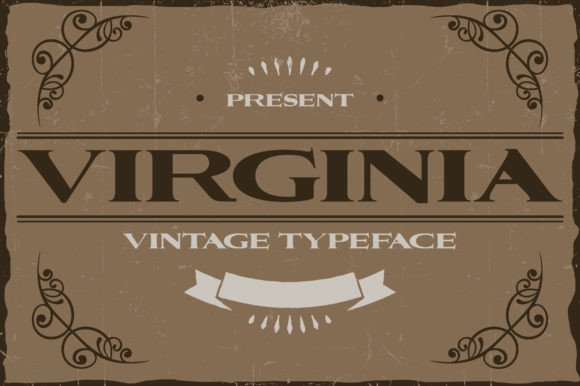
Step into the world of Virginia Font, a slab serif typeface echoing the untamed spirit of the wild west cowboys. Crafted by Minimalistartstudio, it embodies the essence of American culture. Adorned with sophisticated serifs and bold strokes, Virginia tells a tale of adventure and frontier living. It's not just a font; it's a gateway to the past, an invitation to embrace the rugged charm of cowboy culture.
Experience the versatility of Virginia Font, seamlessly adapting to your creative visions. Whether it's wedding cards, book covers, magazine spreads, or comic book pages, Virginia adds a touch of vintage charm and authenticity. Its timeless appeal blends seamlessly with modern aesthetics, creating a harmonious balance between nostalgia and innovation. Unleash your creativity and let Virginia take center stage in your designs.
Immerse yourself in the captivating aura of Virginia Font. Its thick, distinct characters exude an unmistakable presence, capturing attention and leaving a lasting impression. The font's carefully crafted curves and sharp angles dance together, creating a visual symphony that captivates the eyes. Use Virginia to craft designs that speak volumes, conveying messages with an air of authority and grace.
With Virginia Font, you can transport your audience to a bygone era, the days of cowboys and dusty trails. It's a font that evokes emotions, stirring a sense of wanderlust and adventure. Each letter is a brushstroke, painting a vivid picture of the wild west, inviting your readers to embark on a journey through time. Whether it's a wedding invitation, a magazine article, or a comic book panel, Virginia Font sets the stage for a captivating storytelling experience.
Virginia Font is more than just a collection of characters; it's a portal to a world of creativity and imagination. It's a font that ignites passion and fuels inspiration. With its timeless elegance and versatility, Virginia transforms your designs into captivating masterpieces. Embrace the spirit of the wild west and make Virginia Font your creative companion.